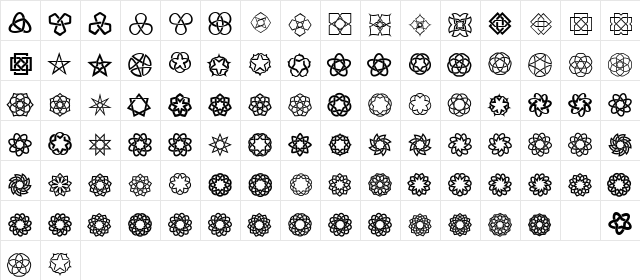
XAirebesk Regular
Design Context for XAirebesk Typeface
XAirebesk is a composed and adaptable typeface that performs quietly and consistently across a wide range of design contexts.